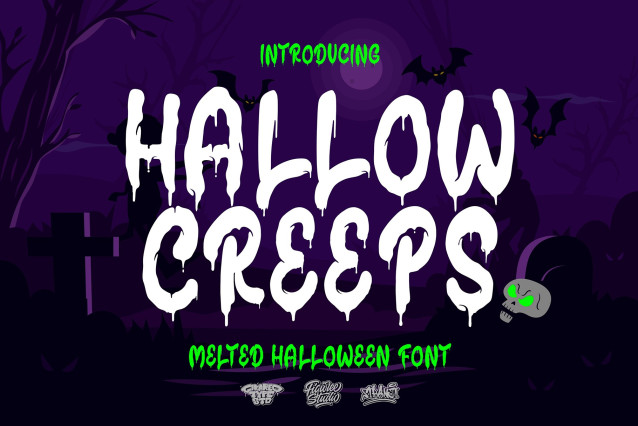
Hallow Creeps Font
Hallow Creeps Font – Melted Halloween Font is a unique display typeface that drips with creepy energy, perfect for October designs and year-round scary themes. Crafted with melted edges and horror-inspired details, this melted Halloween font turns every poster, party invitation, and logo into a haunted masterpiece.
From pumpkin festival flyers to haunted house branding, Hallow Creeps ensures your message stands out with spooky authenticity.